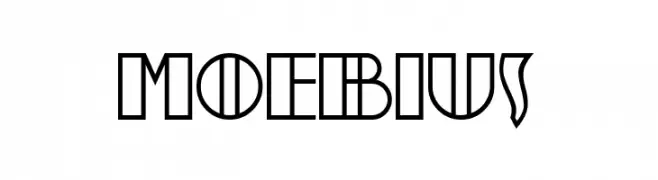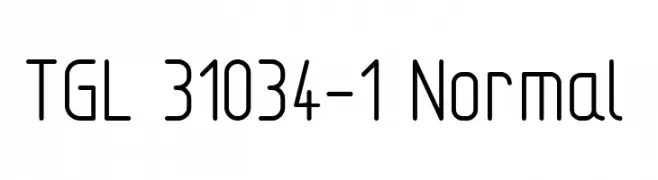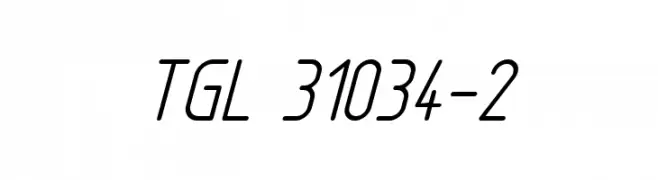
An ornate, decorative font with intricate details and bold outlines.
A modern, geometric font with a clean and uniform design.
A sleek, modern font with a slight italic slant and consistent thin strokes.
A gothic, medieval-style font with ornate and sharp-edged characters.
A bold, retro-style font with thick, rounded characters and a playful design.
A modern geometric font with bold, angular shapes and clean lines.
A playful, hand-drawn style font with dynamic stroke variations.
A modern, minimalist font with thin, uniform strokes and balanced spacing.
A clean, modern font with balanced spacing and clear characters.
A dot matrix style font with a digital and modern aesthetic.